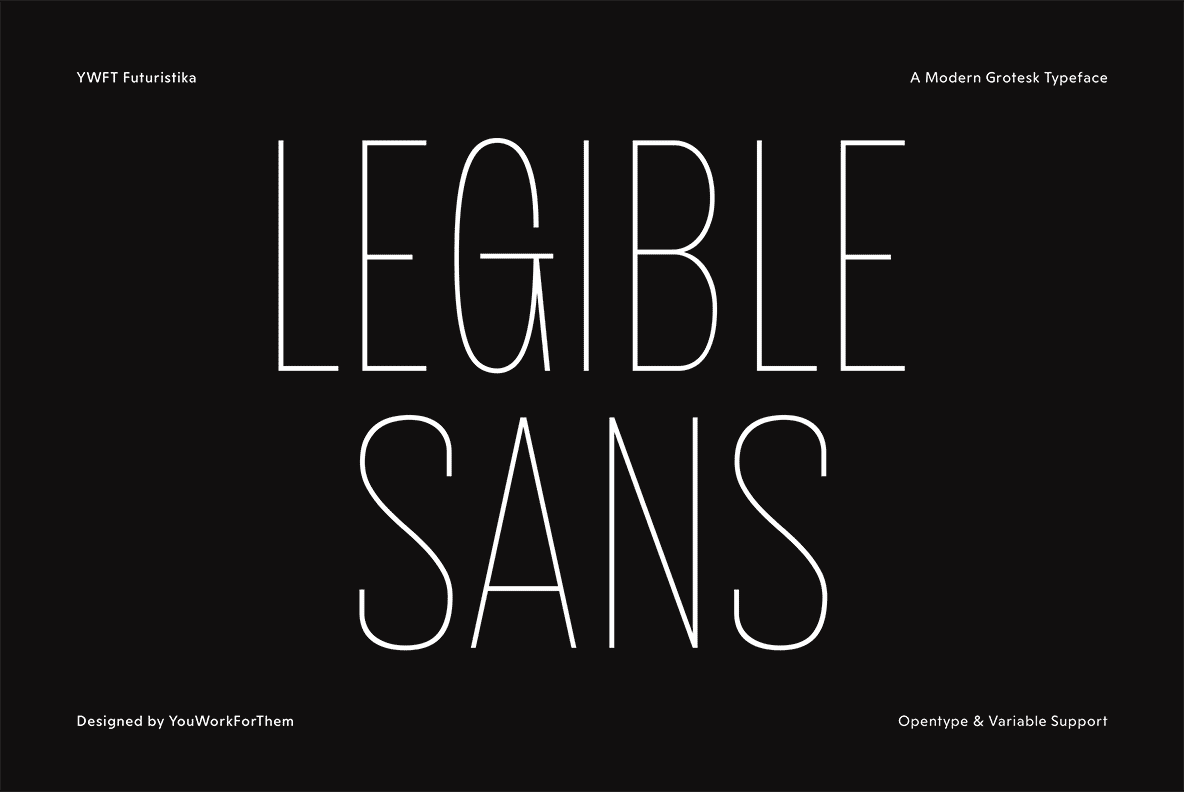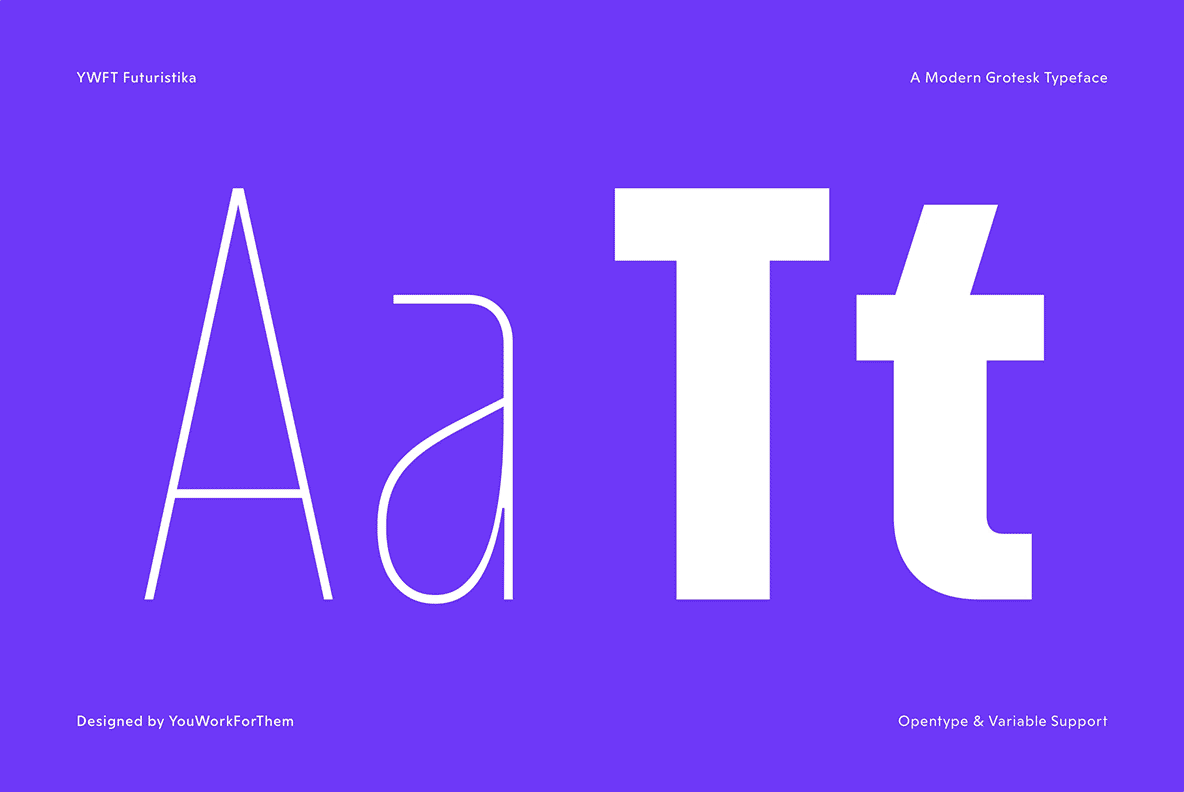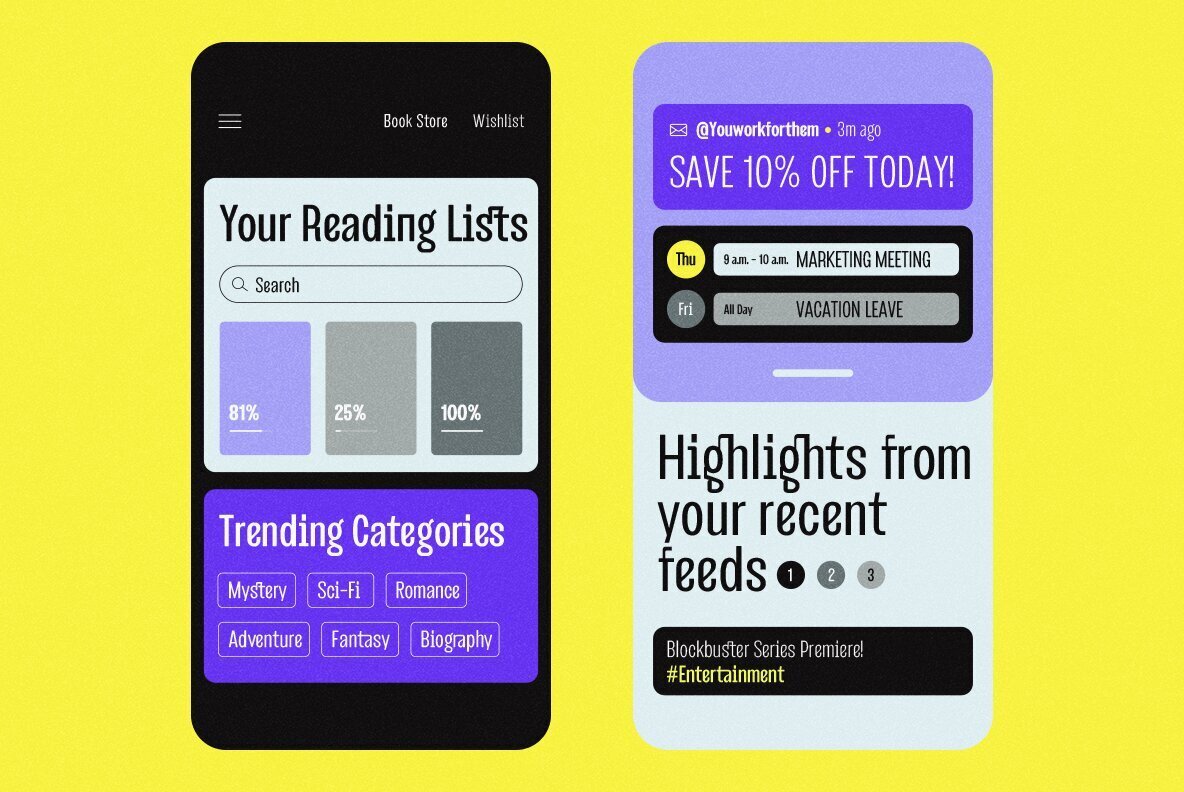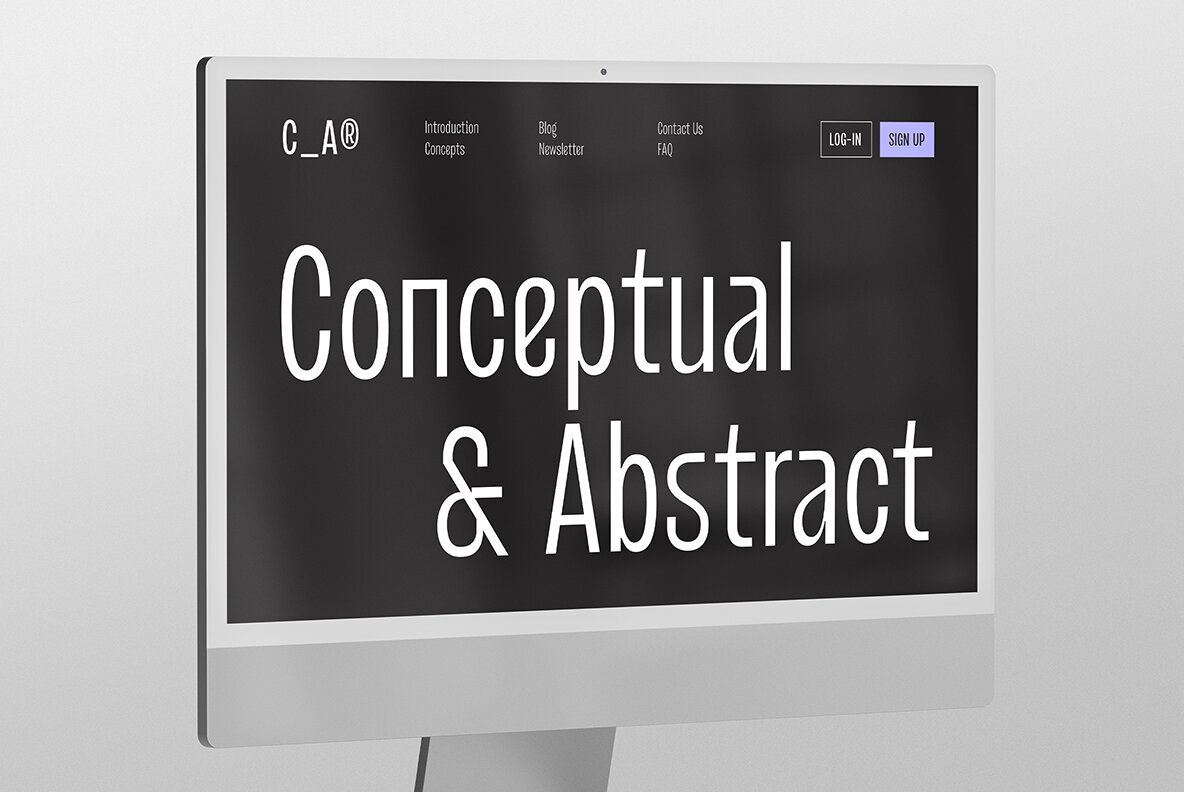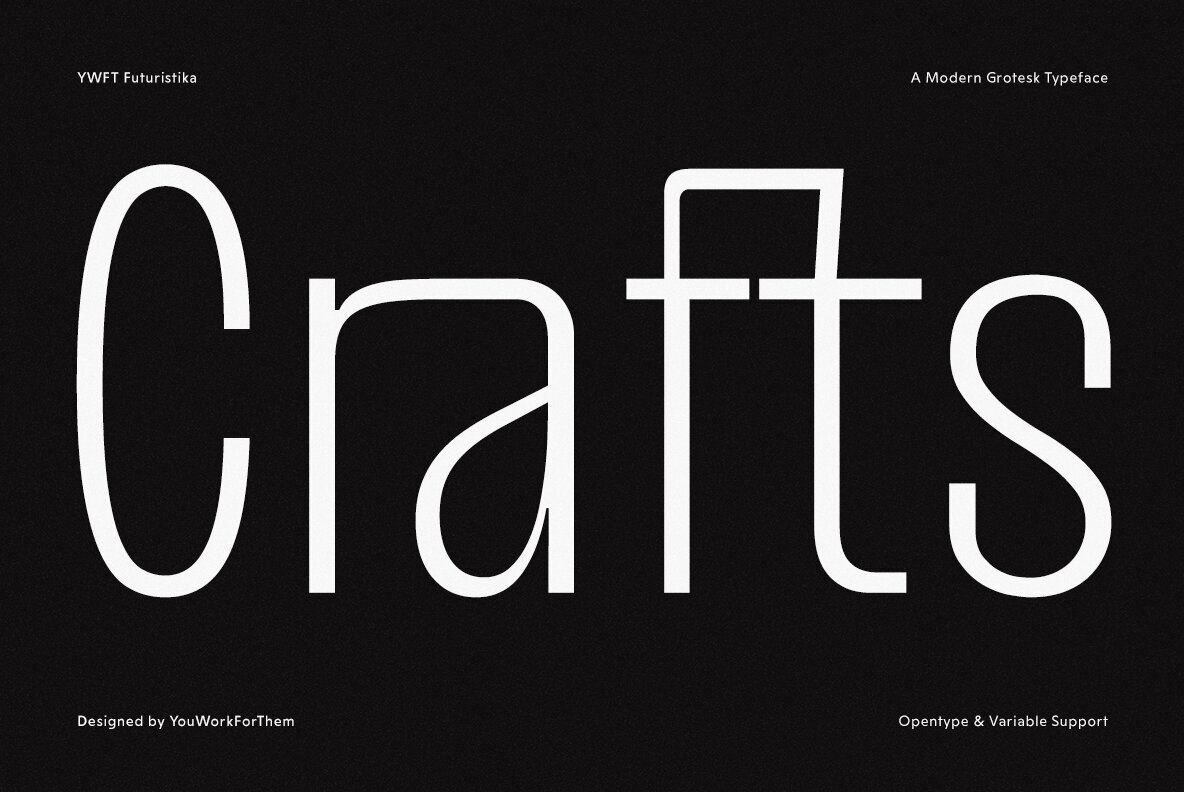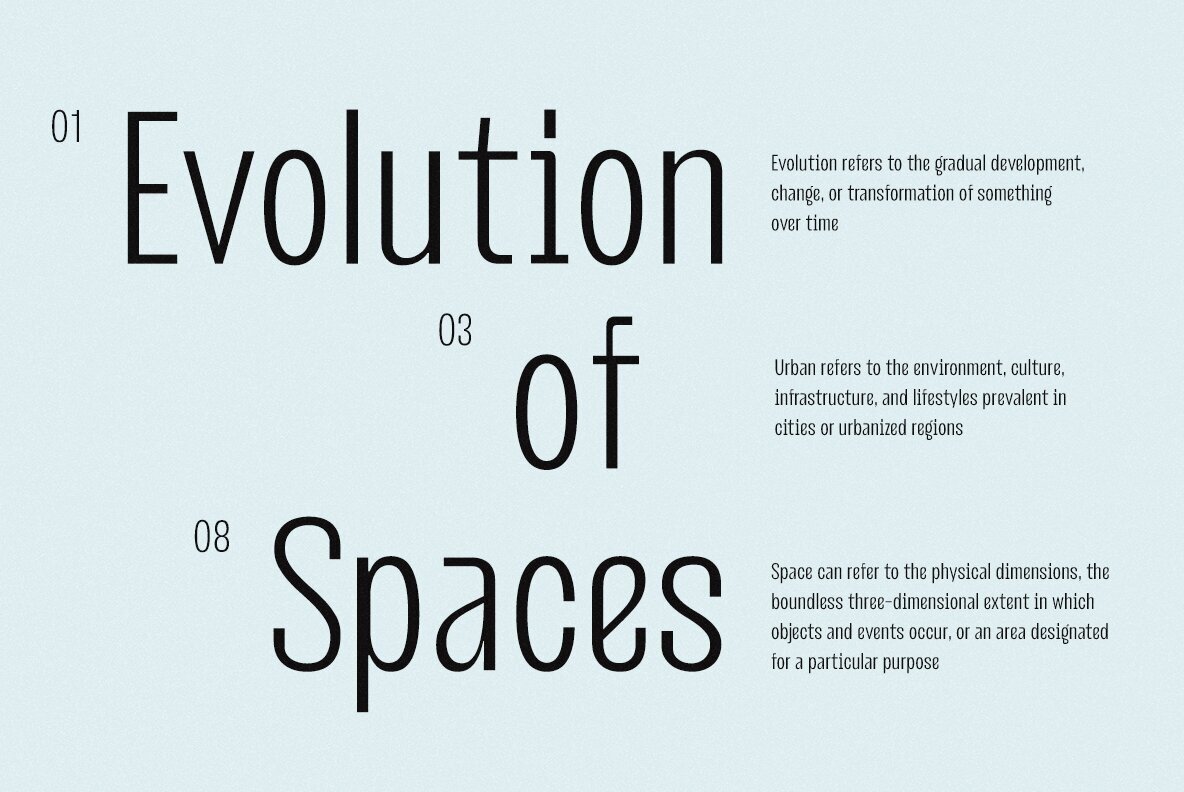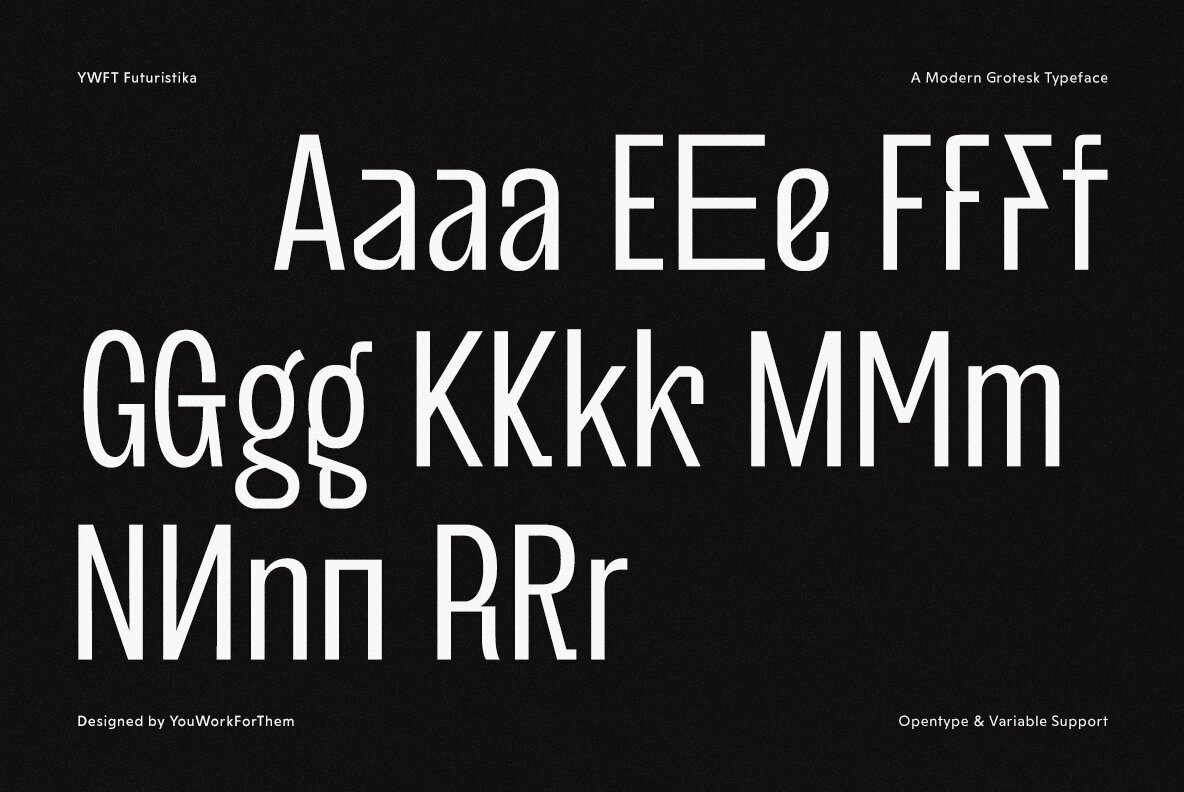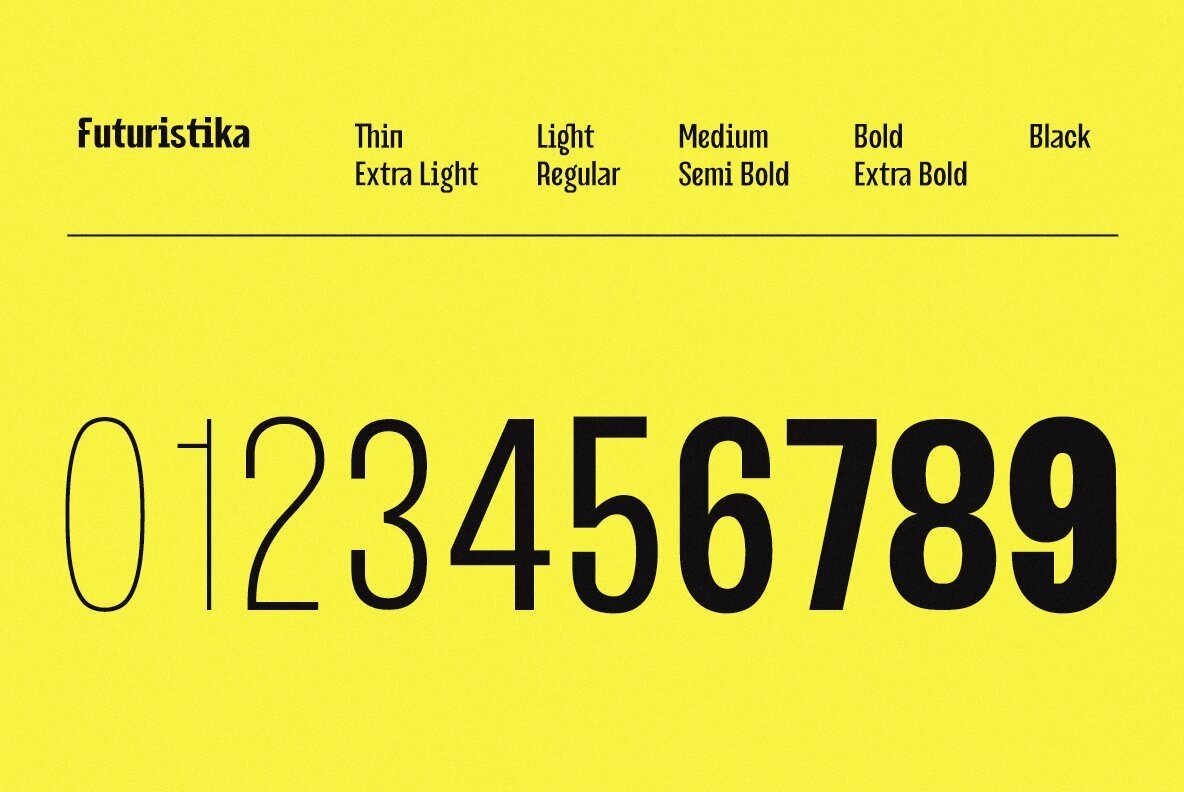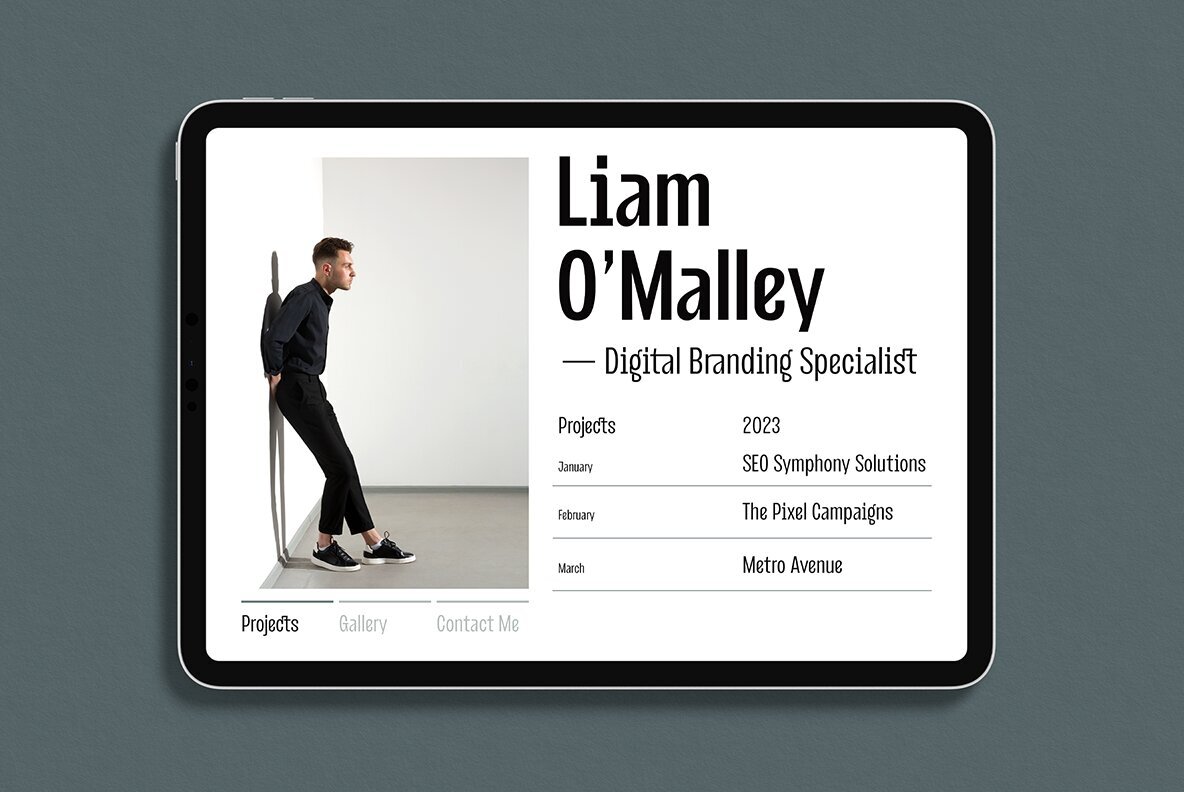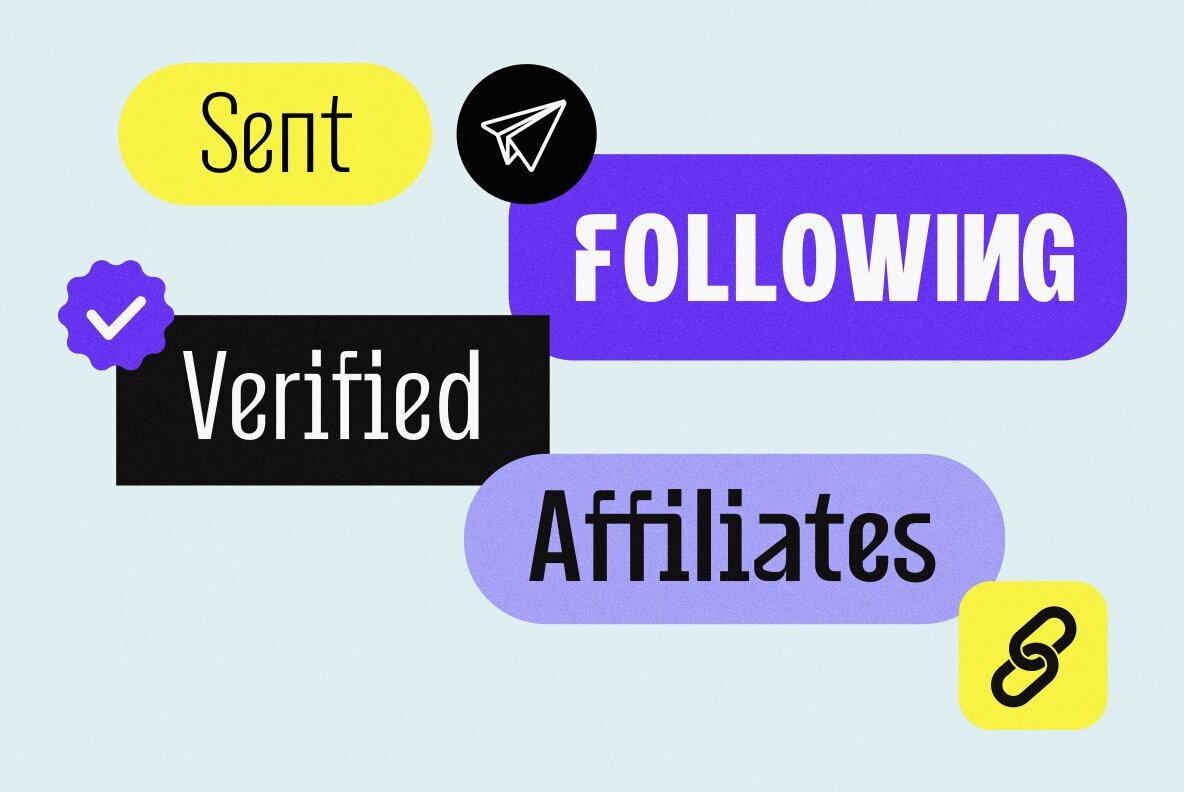
YWFT Futuristika Font
Discover YWFT Futuristika, a revolutionary sans-serif font from YouWorkForThem, crafted specifically for the modern digital landscape. Breaking free from traditional design constraints, Futuristika is tailored for the dynamic world of social media, apps, and fast-paced online content. With its fresh approach, it signifies a new era in typography, moving beyond designs of the past to meet today’s digital demands. YWF Futuristika shines with 8 distinct weights, from the finesse of thin to the boldness of black, catering to diverse design needs. It's not just about variety; each weight is designed for maximum readability and impact, perfect for everything from eye-catching video comtent headlines to immersive web content. Adding to its versatility, the font includes variable support, allowing fluid transitions and tailored weight adjustments to suit any design scenario. Boasting over 500 glyphs, YWFT Futuristika offers a vast canvas for creative expression. This extensive range ensures that every message is delivered with precision and flair. Additionally, the font extends its reach with comprehensive Latin, Greek, and Vietnamese language support, embodying a truly global design ethos. YWFT Futuristika is more than a font—it's a testament to YouWorkForThem's 20+ year legacy in the design world. With instant downloads, cash back rewards, and easy licensing options, accessing Futuristika is effortless and rewarding. By choosing this font, you're not just selecting a typeface; you're embracing a future-forward approach to design, backed by a company that's been a trusted resource for designers worldwide.Introducing YWFT Futuristika: A Modern Typeface for the Digital World
Key Features: Versatility and Readability
Extensive Glyphs and Language Support
Embrace the Future of Design with YouWorkForThem